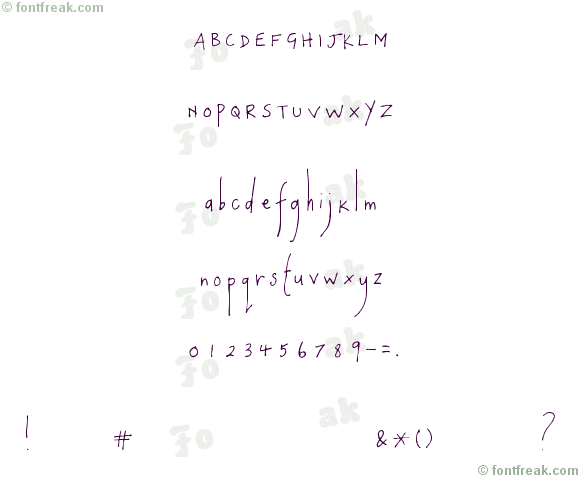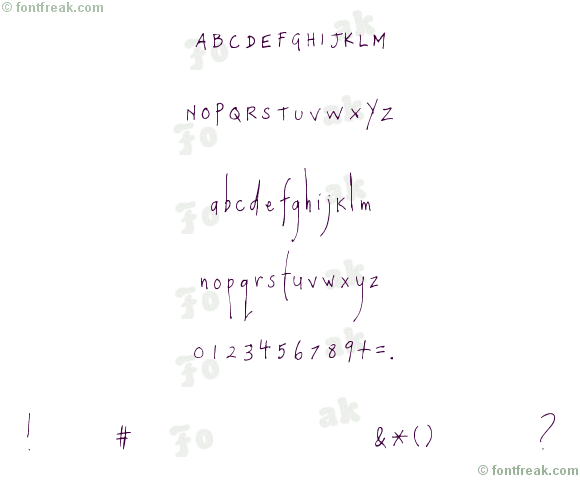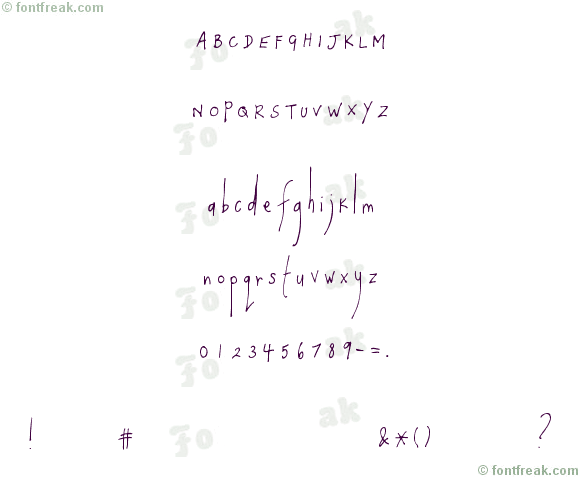
Laura-Optional
Laura-Normal
Laura-Alternate
The Laura-Optional font, created by Bride & Groom, is a charming handwritten style that brings a personal touch to any design. As a display font, it features a unique blend of elegant strokes and playful curves, making it an ideal choice for projects that require a warm, inviting aesthetic. The font showcases a medium stroke weight with subtle contrast, which adds depth and character to each letter. Its slightly irregular spacing enhances the handwritten effect, giving it a casual yet refined appearance.
This versatile font excels in various applications. It is particularly suited for wedding invitations, where its romantic flair can set the tone for the big day. Additionally, the Laura-Optional font works beautifully for greeting cards, allowing for heartfelt messages to resonate with recipients. It can also be used in branding for small businesses, especially those in the creative or artisanal sectors, as it communicates authenticity and warmth. Restaurant menus can benefit from this font as well, providing a relaxed yet sophisticated vibe that appeals to diners. Finally, content creators can leverage this font in social media graphics, ensuring their posts stand out with a personal touch.
The target audience for the Laura-Optional font includes graphic designers, small business owners, and content creators who seek a distinctive typeface that adds a personal element to their work. The font’s unique style, along with its freeware license, makes it an accessible choice for anyone looking to elevate their design projects.
What sets the Laura-Optional font apart is its ability to blend elegance with informality, making it a perfect choice for both personal and professional projects. With its distinctive handwritten quality, the Laura-Optional font free download is sure to inspire creativity and enhance any design endeavor.